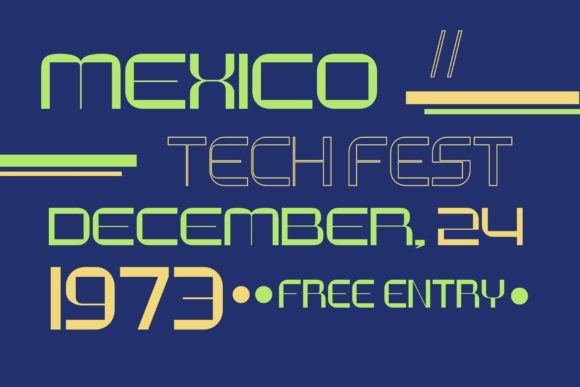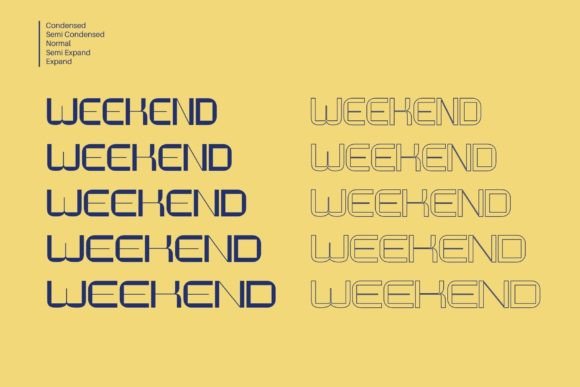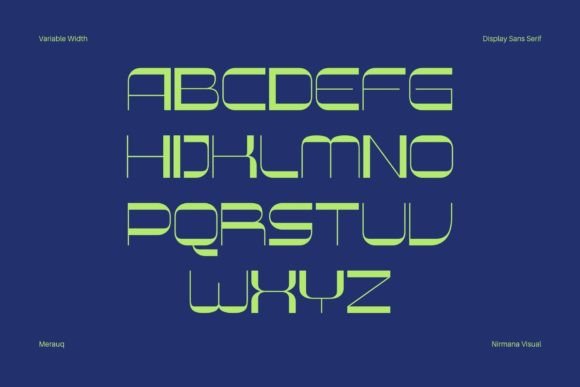
Introduction to Merauq Font
As a designer, there’s nothing quite like the thrill of creating something beautiful from scratch. You’ve got a blank canvas, a spark of inspiration, and a vision for a project that’s going to wow your clients or captivate your audience. But, as you start to build your design, you know that the right font can make all the difference. That’s where Merauq Font comes in – a high-quality, versatile design resource that’s sure to elevate your creative project.
Key Features of Merauq Font
- High-quality, versatile design resource ideal for creative projects, offering a unique aesthetic.
- Features a large character set, including uppercase and lowercase letters, numbers, and special characters.
- Perfect for use in logos, branding, typography, and other creative projects where a unique font is required.
- Supports a wide range of languages, making it a great resource for multilingual projects.
Honest Review: Merauq Font
I recently stumbled upon the Merauq Font, and I must say it’s been a valuable addition to my design resources. This high-quality font is perfect for any creative project that requires a unique touch.
Here are some of my favorite features:
- Unique and modern design
Limitations: ⚠️ While the Merauq Font is a great resource, I do wish it came in more font styles and weights. Additionally, the font might not be suitable for projects that require a more traditional or formal look.
Getting the Most Out of Merauq Font
Common Use Cases for Merauq Font